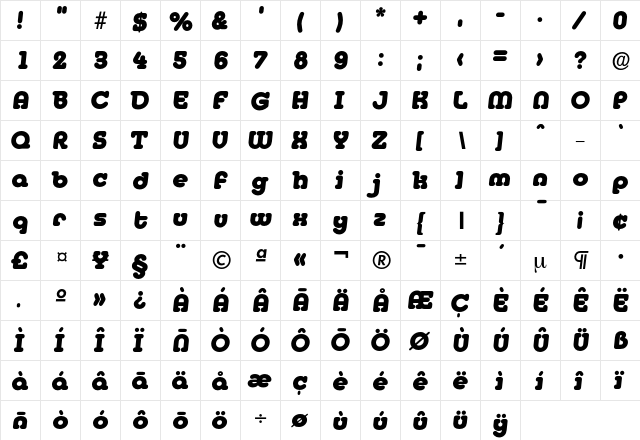
Media-ExtraBoldIta Regular
Design Context for Media-ExtraBoldIta Typeface
Media-ExtraBoldIta takes a measured approach to typography — its balanced proportions and neutral character make it a reliable workhorse for both digital and print work. The heavy weight commands attention and anchors typographic hierarchies.